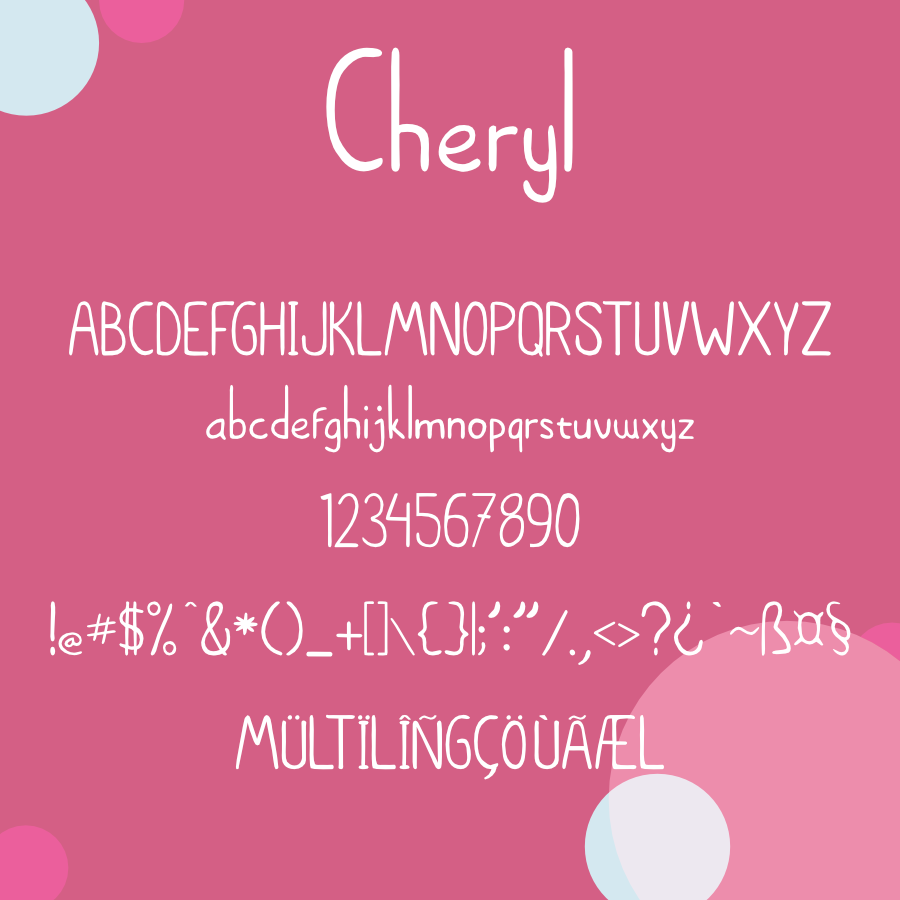
Cheryl
Cheryl is an playful with kids style font. It has a 'freedom line' which will give your design a cheerful and happiness feel. Its perfect for kids birthday cards, kids birthday invitation, comic text, kids story book title, toys brand name, and every other design which needs to look playful. freedom and happiness!